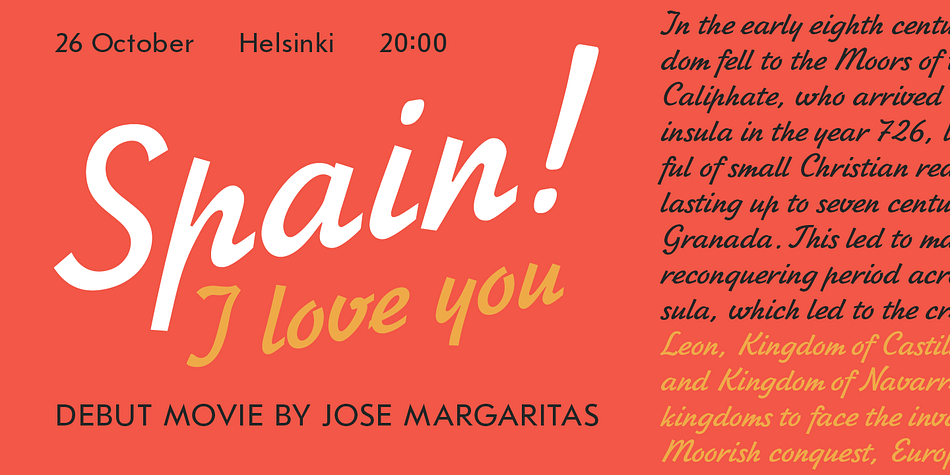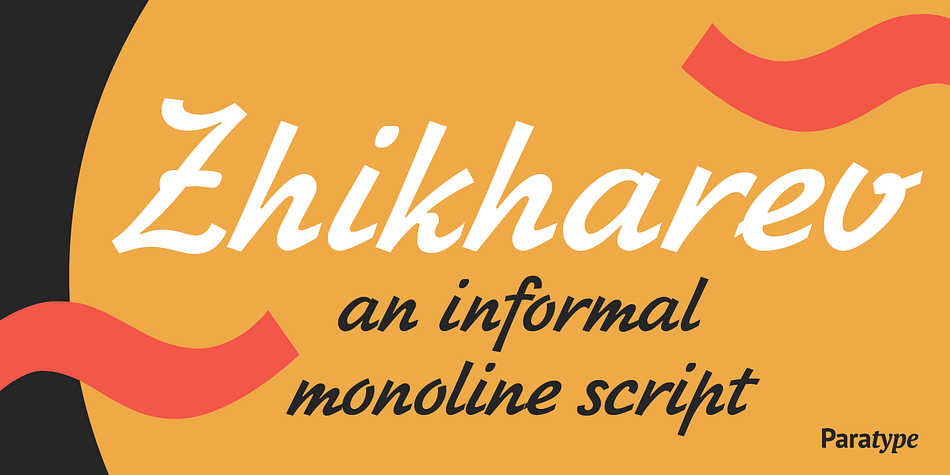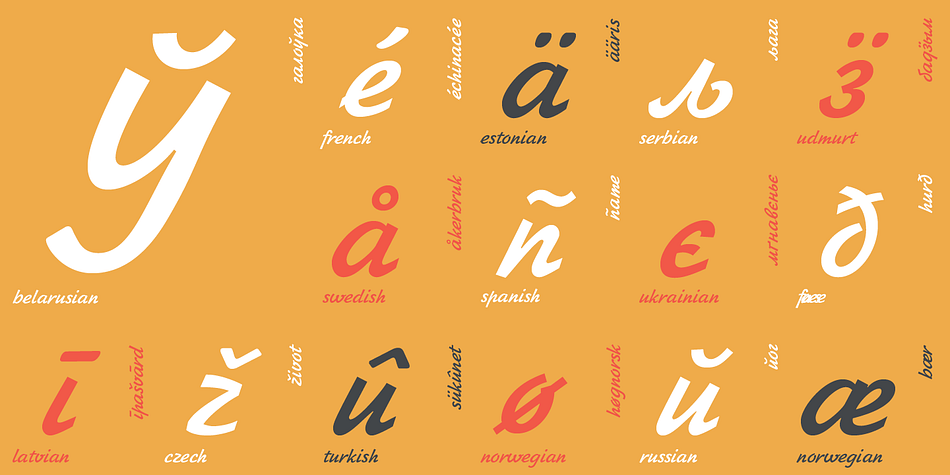
Designed by Gennady Baryshnikov and Igor Zhikharev, Zhikharev is a hand drawn and script font published by ParaType.
Zhikharev was designed at Polygraphmash in 1953 by Igor Zhikharev, based on his handwriting. The digital version was developed in 1989 by Gennady Baryshnikov, with the assistance of Vladimir Yefimov.
It is an informal monoline script for use in both text and display matter.